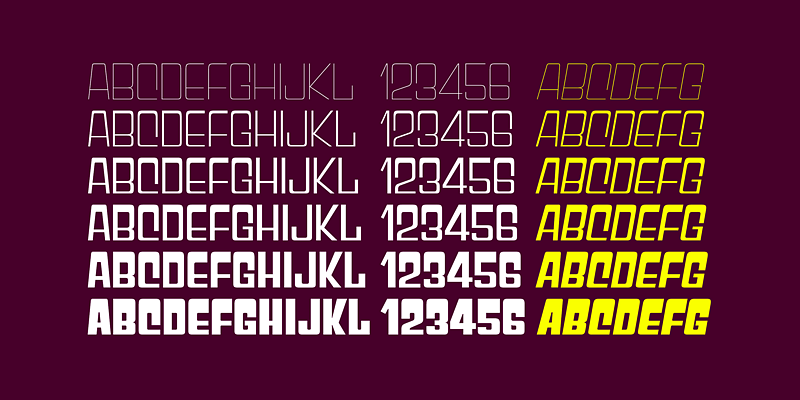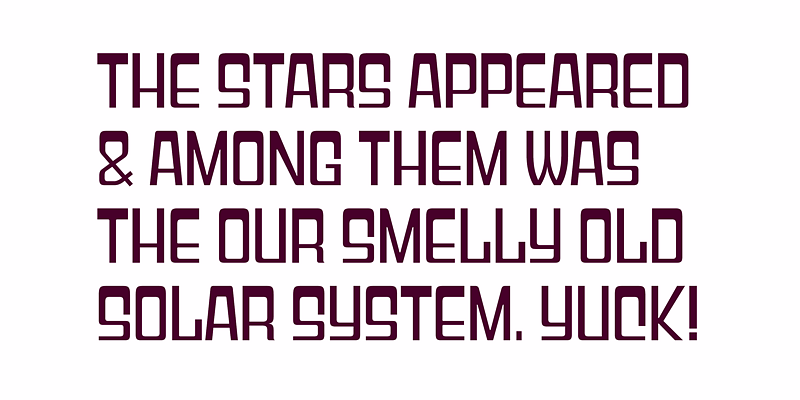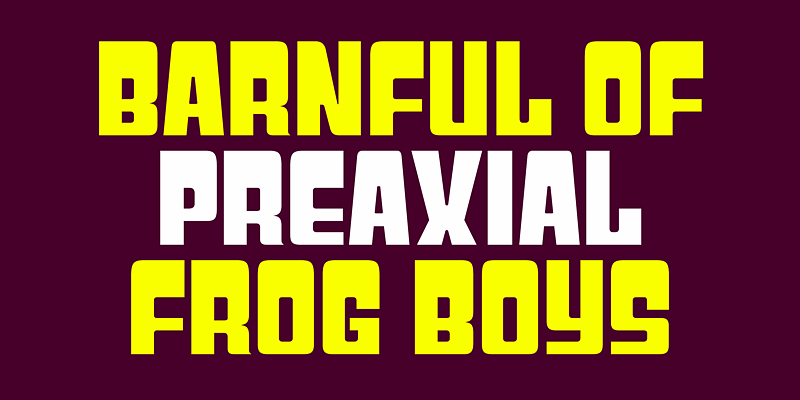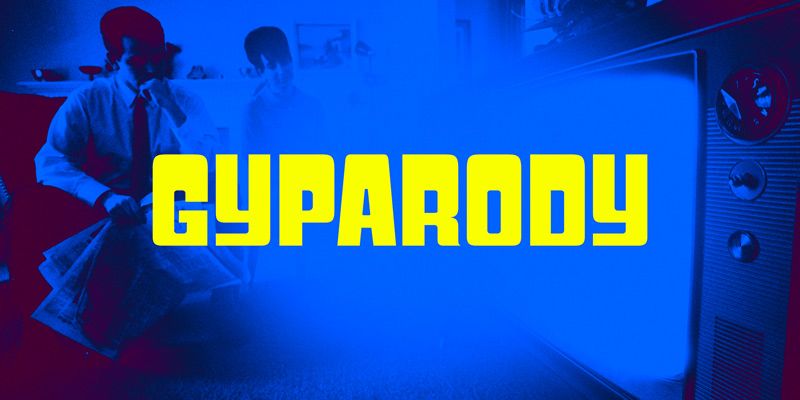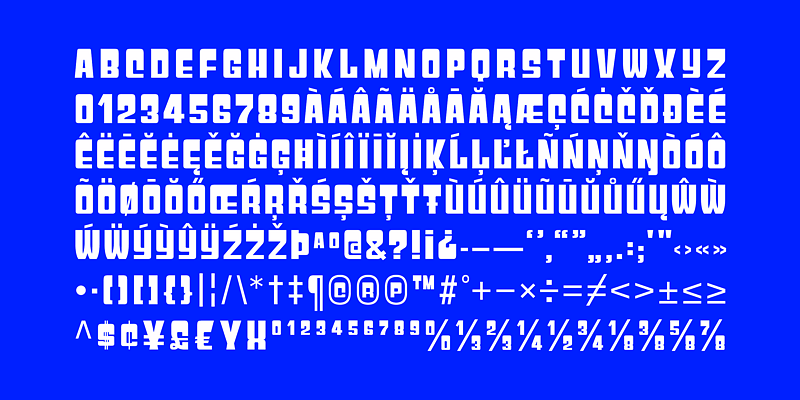
Gyparody draws on the late-1960s typeface Anonymous, bringing period geometry into a family with room to change tone. The lightest styles make long, open lines for a record sleeve or exhibition title; Book and Regular give that geometry a firmer voice for names and short text; Bold and Heavy turn it into a confident headline. Each of the six weights has an italic, so a title can gain movement without leaving the family. Alternate X and Y forms offer another way to tune a wordmark or a conspicuous display line. Try it where a design calls for late-sixties character with more control than a single revival style can provide.